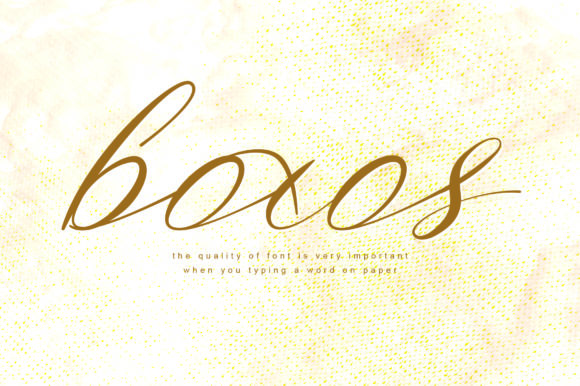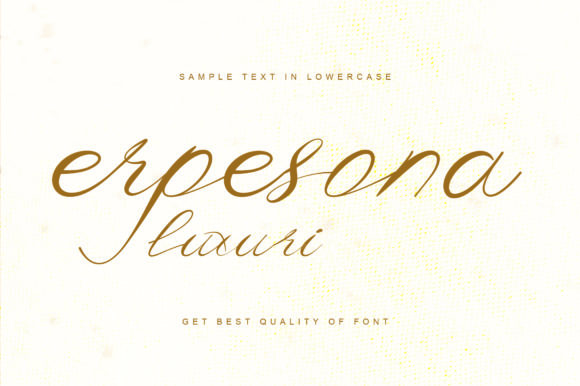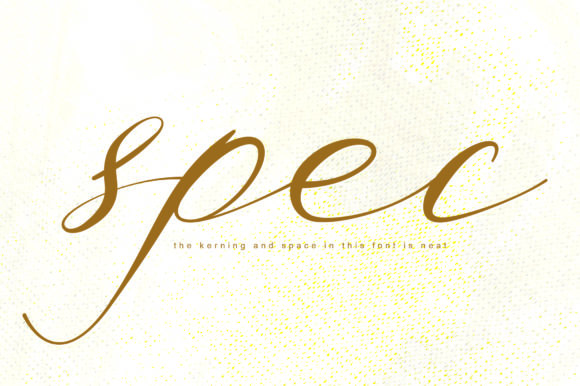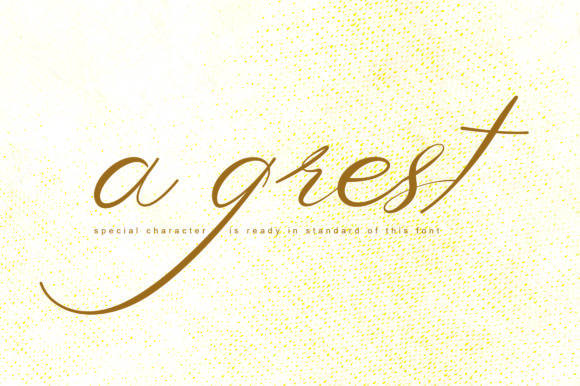
Evepos Font: The Ultimate Choice for Elegant Handwritten Designs
Are you a designer or crafter looking for a font that can add a touch of elegance and sophistication to your designs? Look no further than Evepos Font. This incredibly distinct, delicate, and timeless handwritten font is perfect for a wide range of design projects, from wedding invitations and thank you cards to quotes, greeting cards, logos, and business cards.
The Characteristics of Evepos Font
Evepos Font is a truly unique and beautiful font that is sure to make your designs stand out. Its delicate and intricate strokes give it a handmade feel that is perfect for designs that require a personal touch. The font is also highly legible, making it easy to read and understand, even at small sizes.
Why Choose Evepos Font?
So, why should you choose Evepos Font for your designs? Here are just a few reasons:
- Unique and Distinctive: Evepos Font is a one-of-a-kind font that will set your designs apart from the rest. Its unique and delicate strokes make it a standout choice for designers who want to create something truly special.
- Timeless: Unlike some fonts that can look dated or trendy, Evepos Font is a timeless choice that will never go out of style. Its classic and elegant design ensures that it will remain a popular choice for years to come.
- Versatile: Evepos Font is incredibly versatile and can be used for a wide range of design projects. Whether you’re creating wedding invitations, business cards, or social media graphics, this font is sure to impress.
- Elegant: Evepos Font is the epitome of elegance and sophistication. Its delicate strokes and classic design make it perfect for designs that require a touch of luxury and refinement.
How to Use Evepos Font in Your Designs
Using Evepos Font in your designs is easy. Here are a few tips to get you started:
- Pair it with Other Fonts: Evepos Font looks great when paired with other fonts. Try pairing it with a bold sans-serif font for a striking contrast.
- Use it for Headings: Evepos Font is perfect for headings and titles. Its delicate strokes and elegant design make it a great choice for adding a touch of sophistication to your designs.
- Add it to Your Brand: If you’re looking to add a touch of elegance to your brand, consider using Evepos Font in your logo or branding materials.
Evepos Font in the World of Design
Evepos Font is a popular choice among designers and crafters. Its unique and elegant design has made it a staple in the world of design. Here are a few ways that designers are using Evepos Font:
- Wedding Design: Evepos Font is a popular choice for wedding designers. Its delicate and elegant design makes it perfect for wedding invitations, save the dates, and other wedding-related materials.
- Stationery Design: Evepos Font is also a popular choice for stationery designers. Its classic and timeless design makes it perfect for creating beautiful and elegant stationery sets.
- Branding Design: Evepos Font is a great choice for branding designers who want to add a touch of elegance and sophistication to their designs.
Evepos Font is a truly unique and beautiful font that is sure to make your designs stand out. Its delicate and intricate strokes give it a handmade feel that is perfect for designs that require a personal touch. With its timeless and elegant design, Evepos Font is a great choice for designers and crafters who want to add a touch of sophistication to their designs. Whether you’re creating wedding invitations, business cards, or social media graphics, Evepos Font is sure to impress.